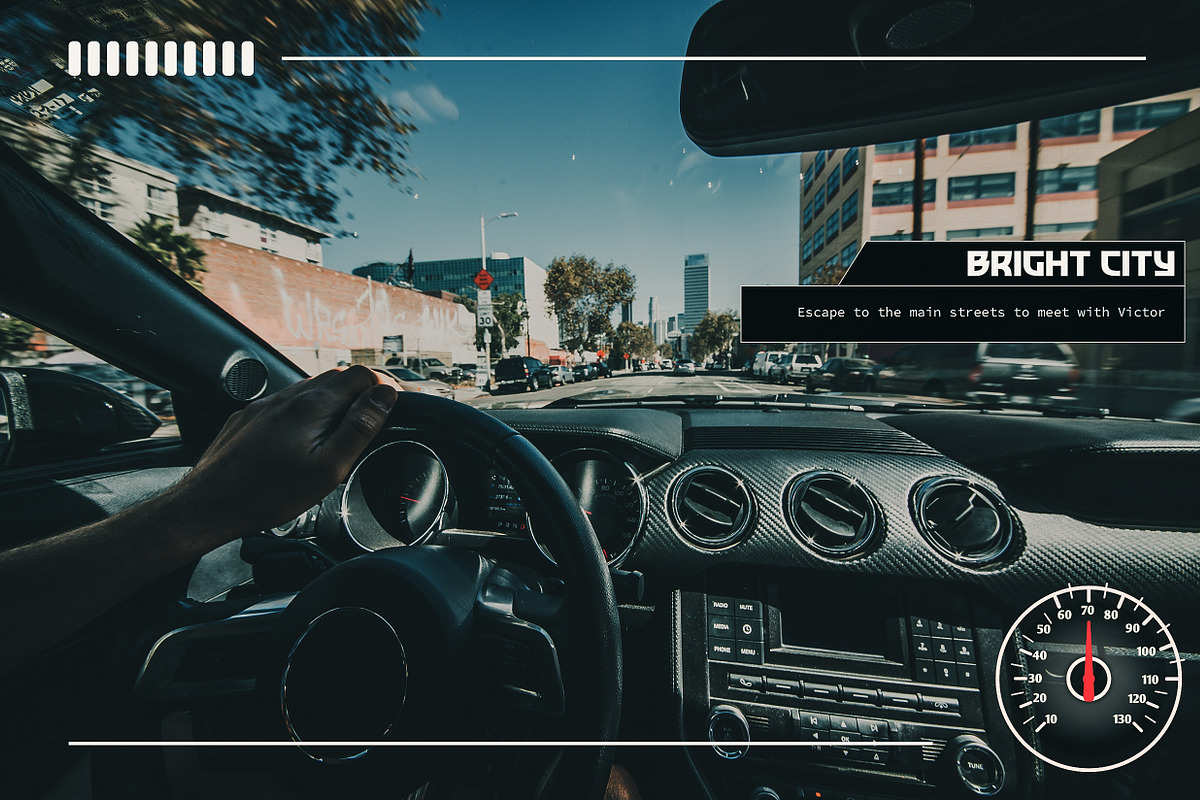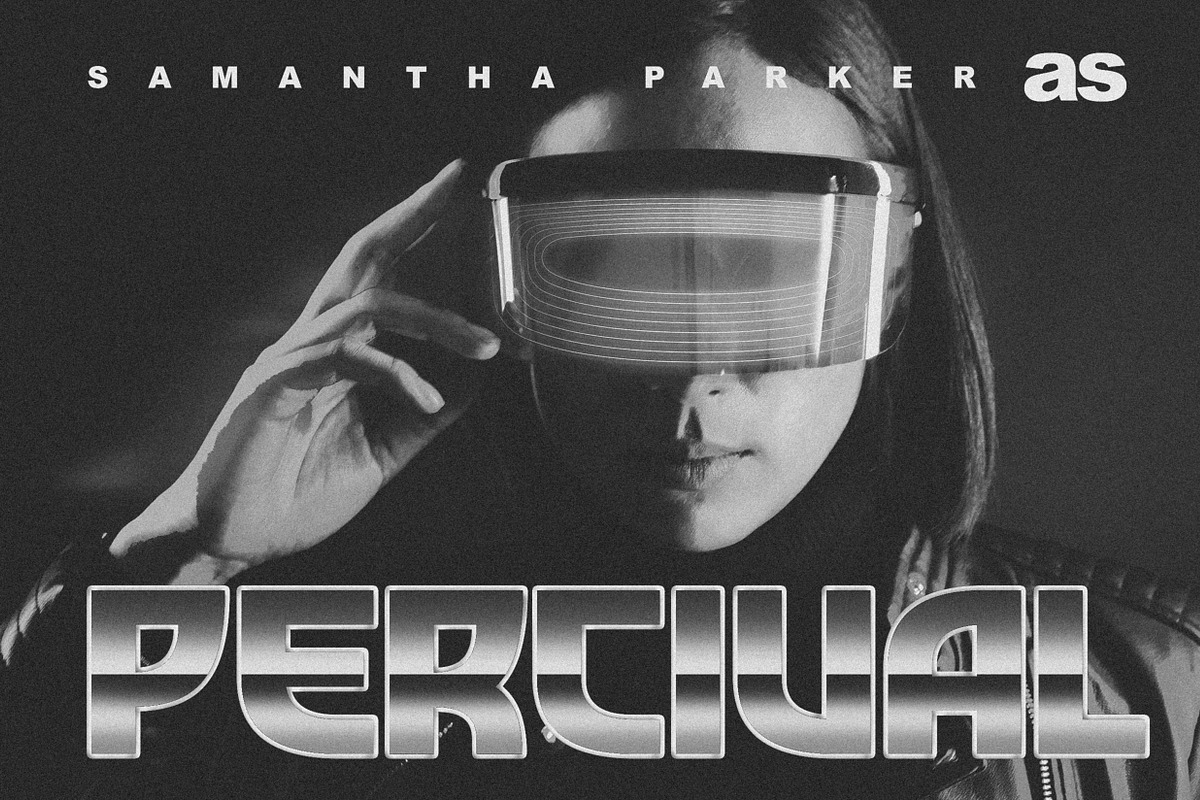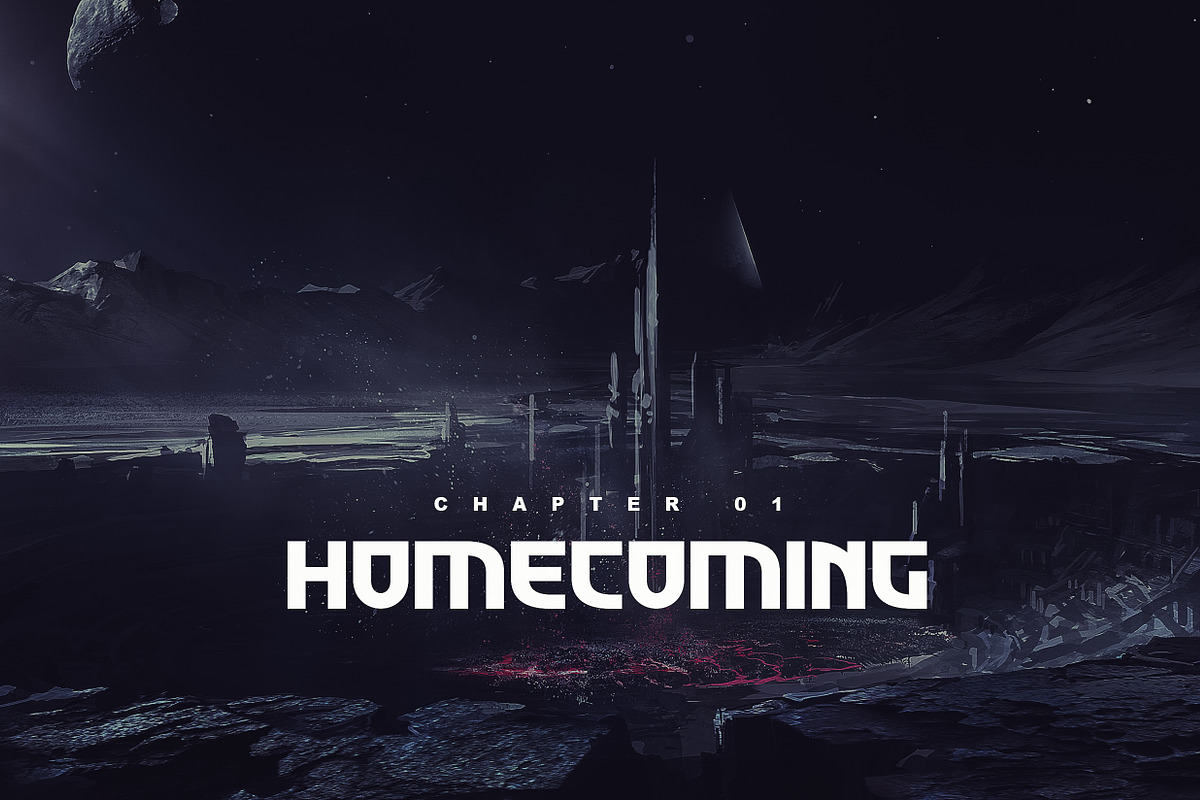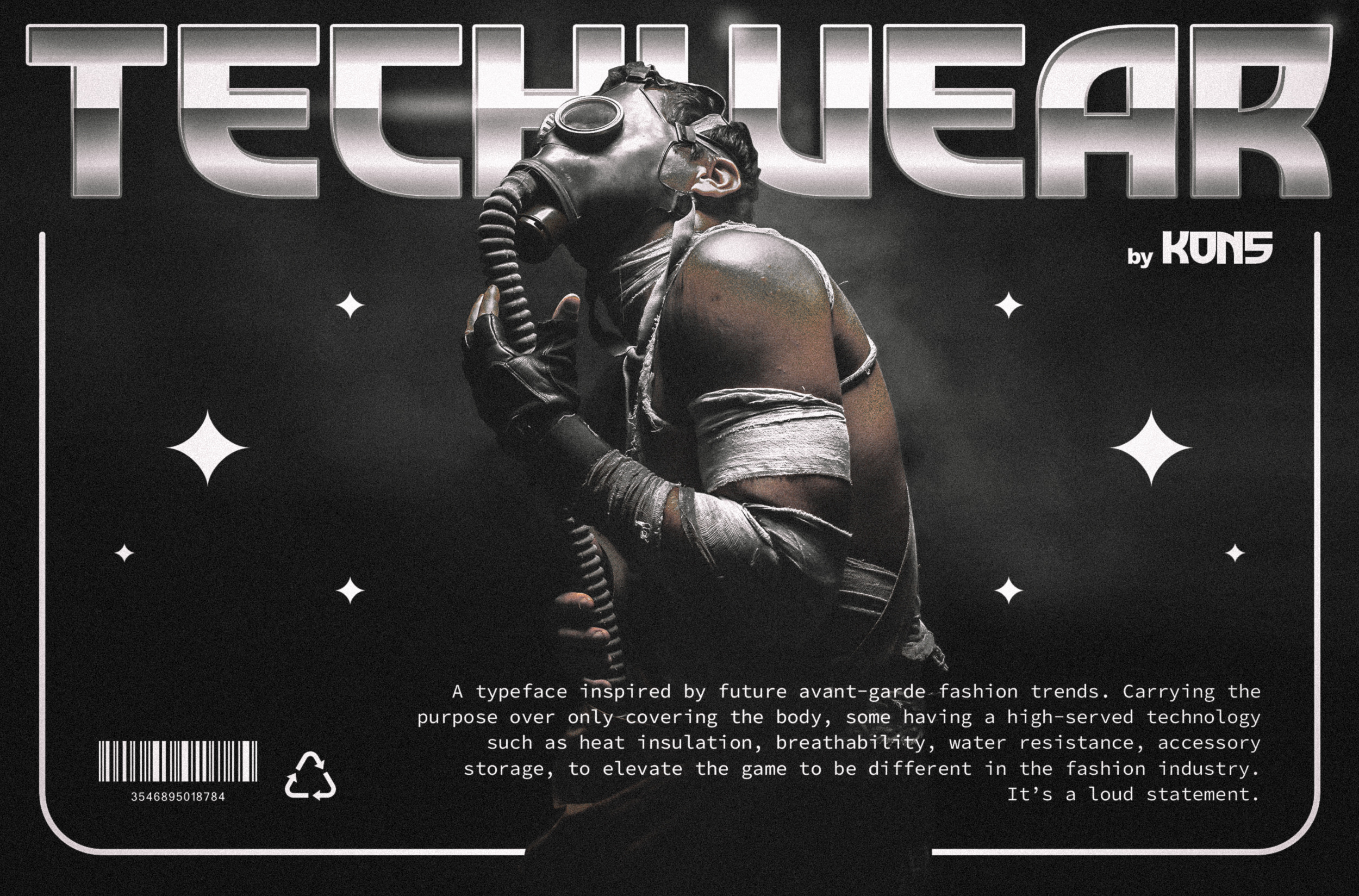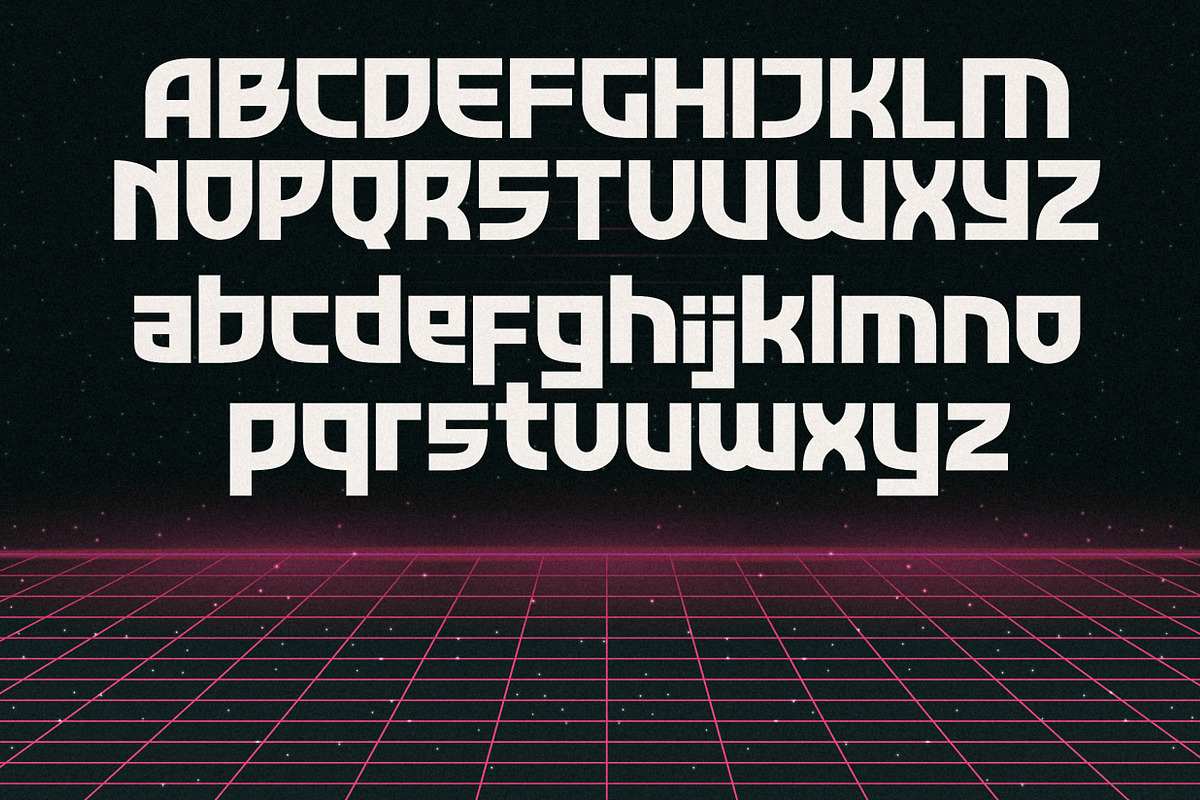
Techwear - Retro Futuristic Fonts
Get ready to jump into the retro-futurism era with Techwear. It is a futuristic typeface inspired from the 80s era and visuals of how people reinterpret the "future" in their fantasy back in the day.
Perfectly fit for sci-fi concept, logo, branding, music project, vaporwave, synthwave concept, poster, game design, UI design, anytime you need to drive fast to the retro-futurism era, Techwear is the answer, comrades.